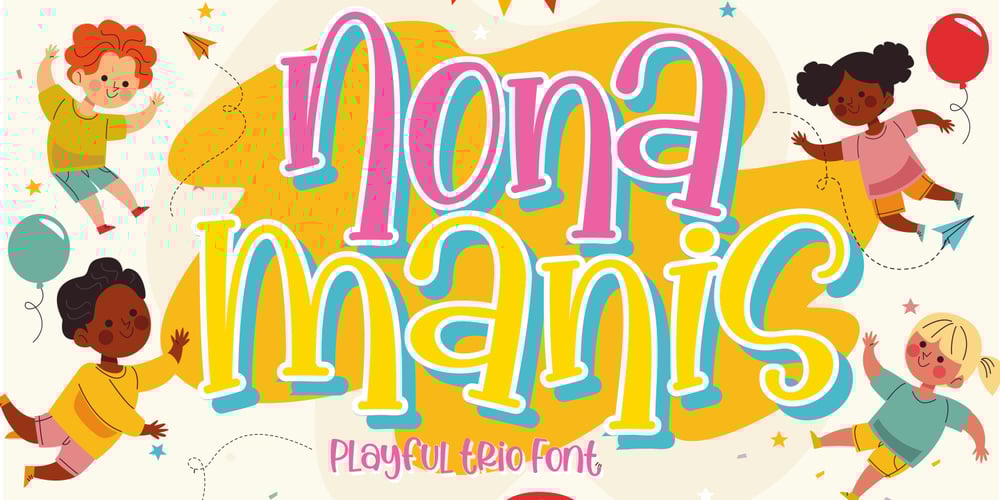
Nona Manis
Nona Manis font
Nona Manis Font Family was designed by Gumilar Pratama Adiatna and published by Gilar Studio. Nona Manis contains 3 styles and family package options. Nona Manis is a Handwritten Display Font With 3 Style (Regular,Outline and Shadow)You Can Mix And Match for Your Awesome ProjectThis fonts is ideal for crafting, branding and decorate your any project. This fonts are perfect for wedding invitation or your blog. Also with their help, you can create a logo or beautiful frame for your home. Or just use for your business, book covers, stationery, marketing, magazines and more.FEATURES :Uppercase & LowercaseNumber & PunctuationMore than 244 of glyphsSupport for 60+ Multilingual languagesPUA Encode12 LigaturesAlternate7 OpenType features ( aalt dlig frac liga ordn sups kern )The font Nona Manis contains 18 ligatures in 3 OpenType featuresThe alternative characters were divided into several Open Type features can be accessed by using Open Type savvy programs such as Adobe Illustrator, Adobe InDesign, Adobe Photoshop Corel Draw X version, And Microsoft Word. And this Font has given PUA unicode (specially coded fonts). so that all the alternate characters can easily be accessed in full by a craftsman or designer.Check my other Font here https://gilarstudio.com/